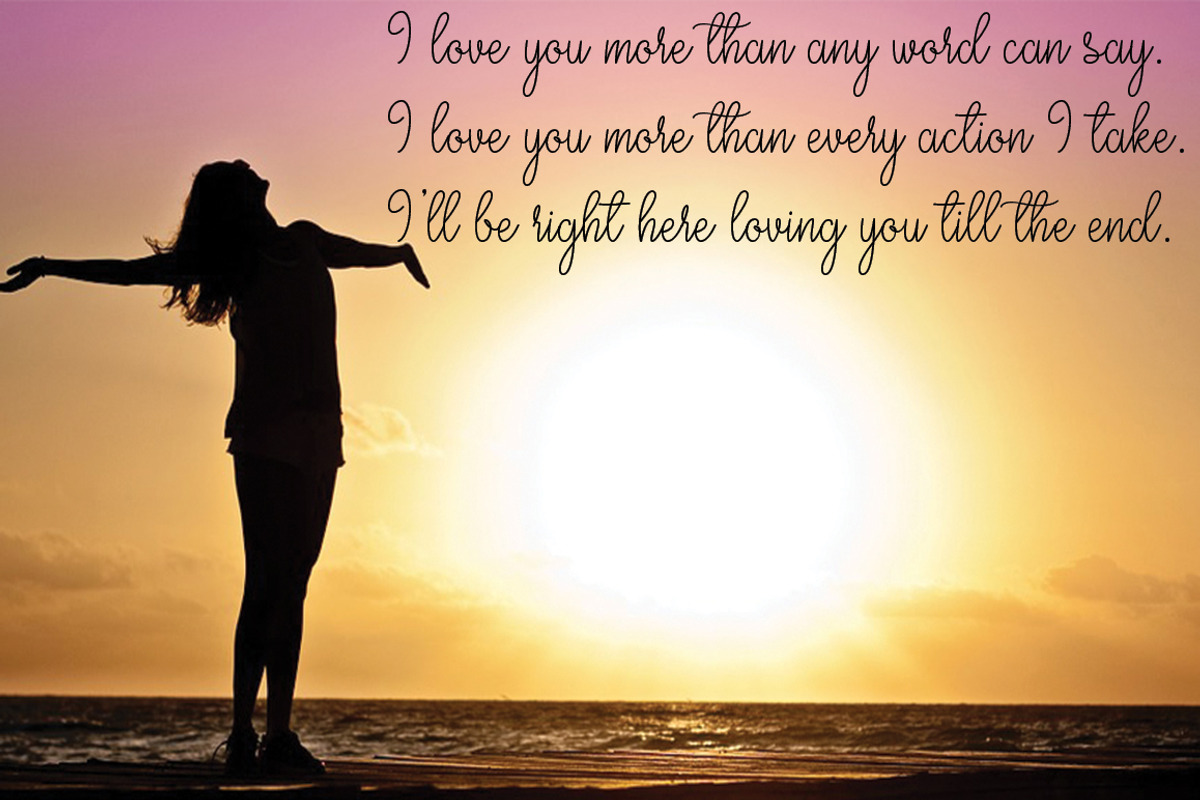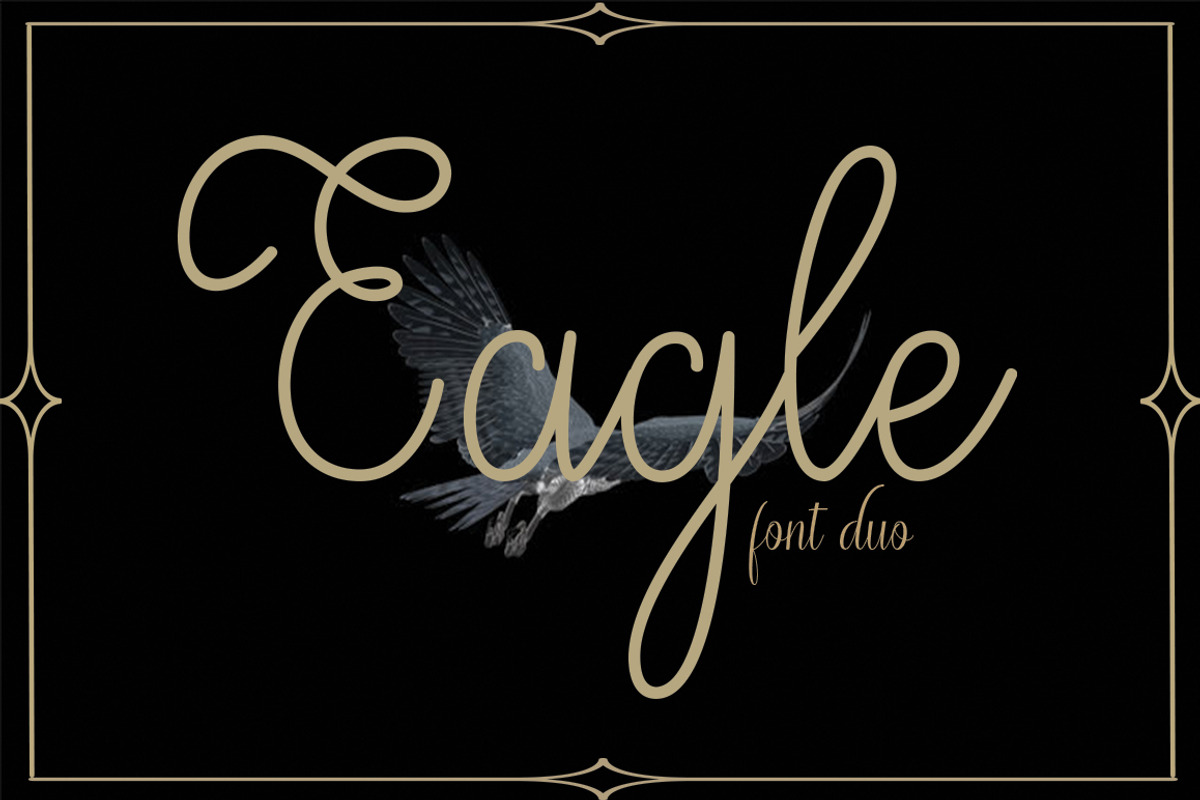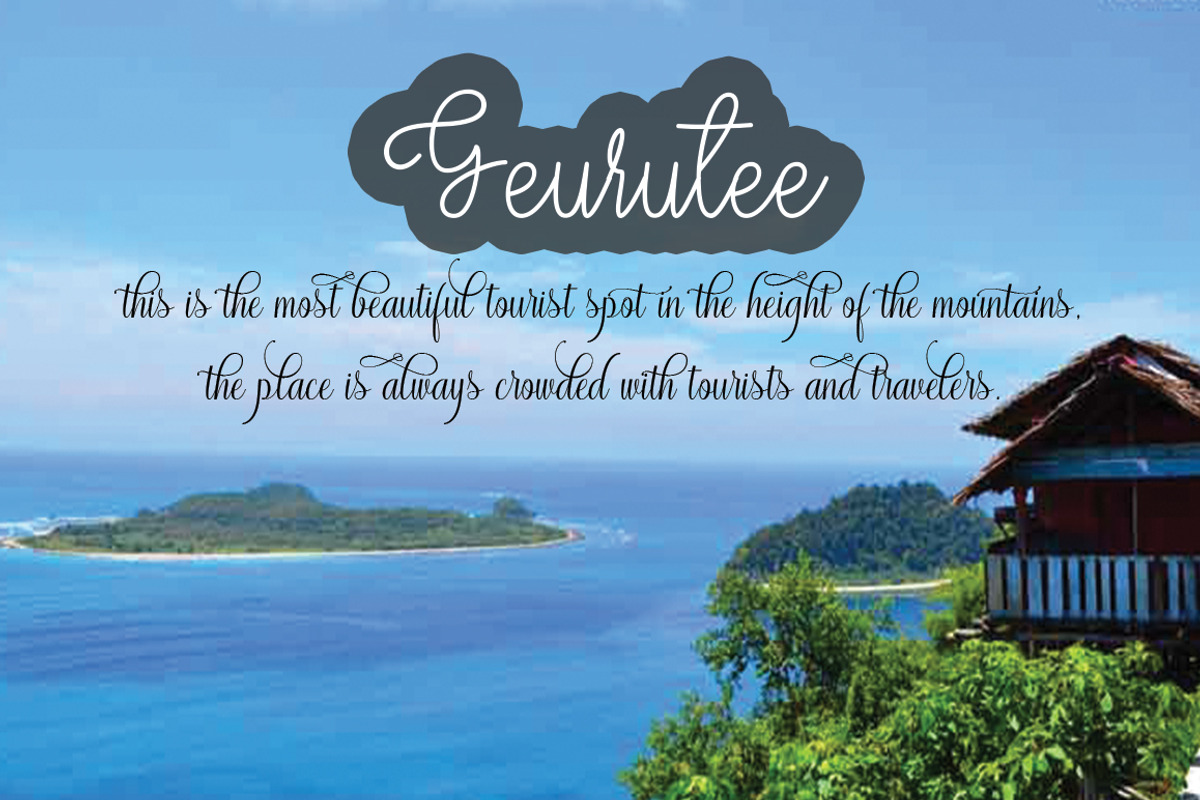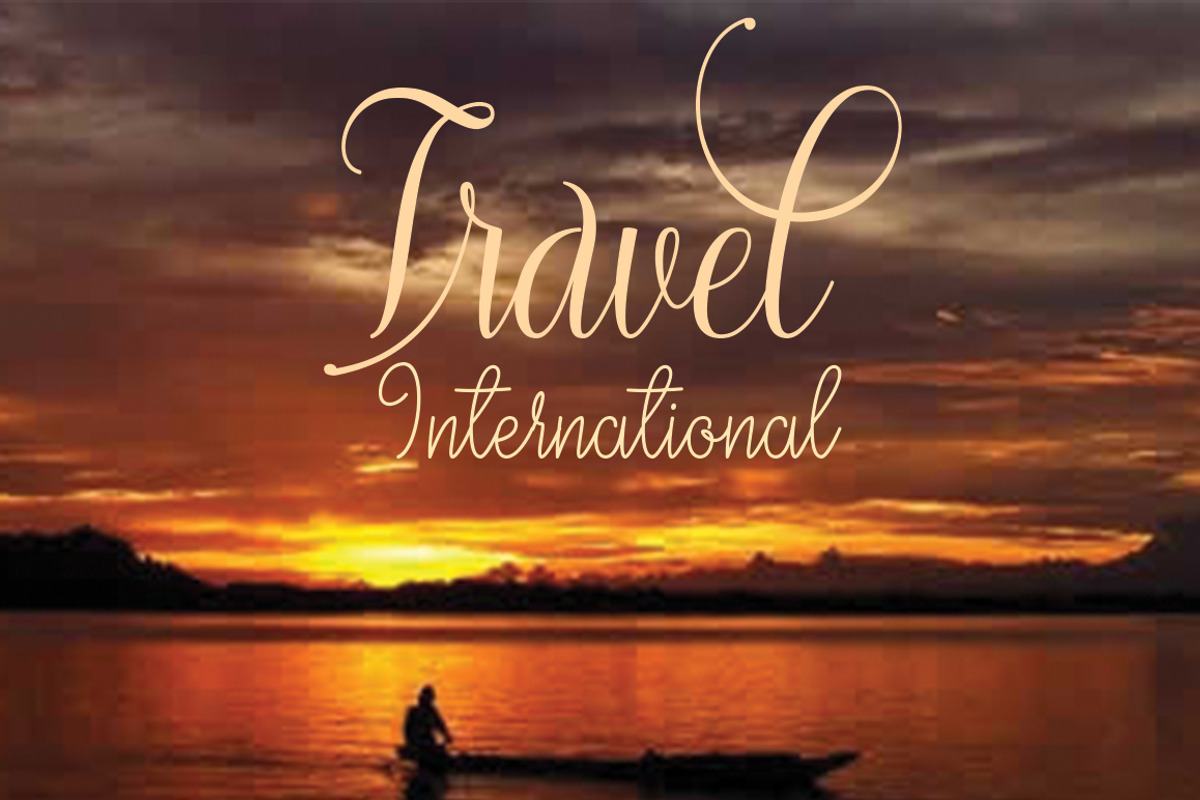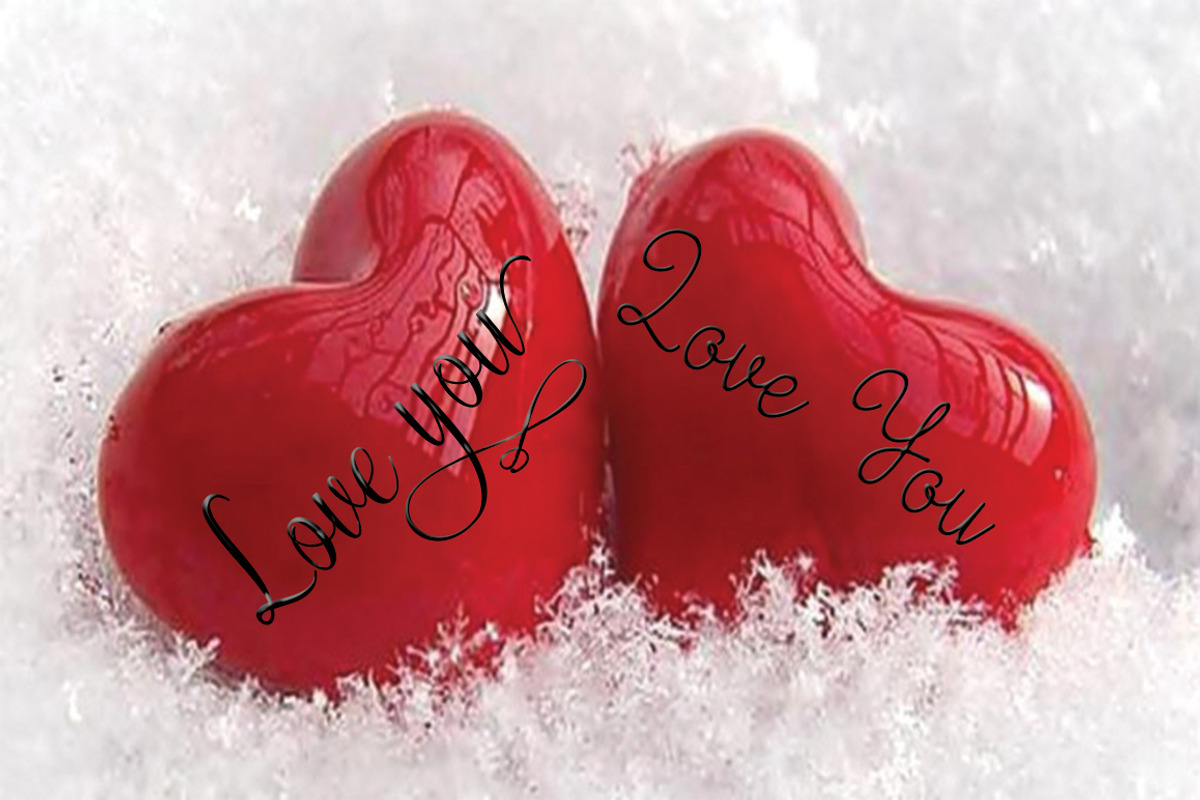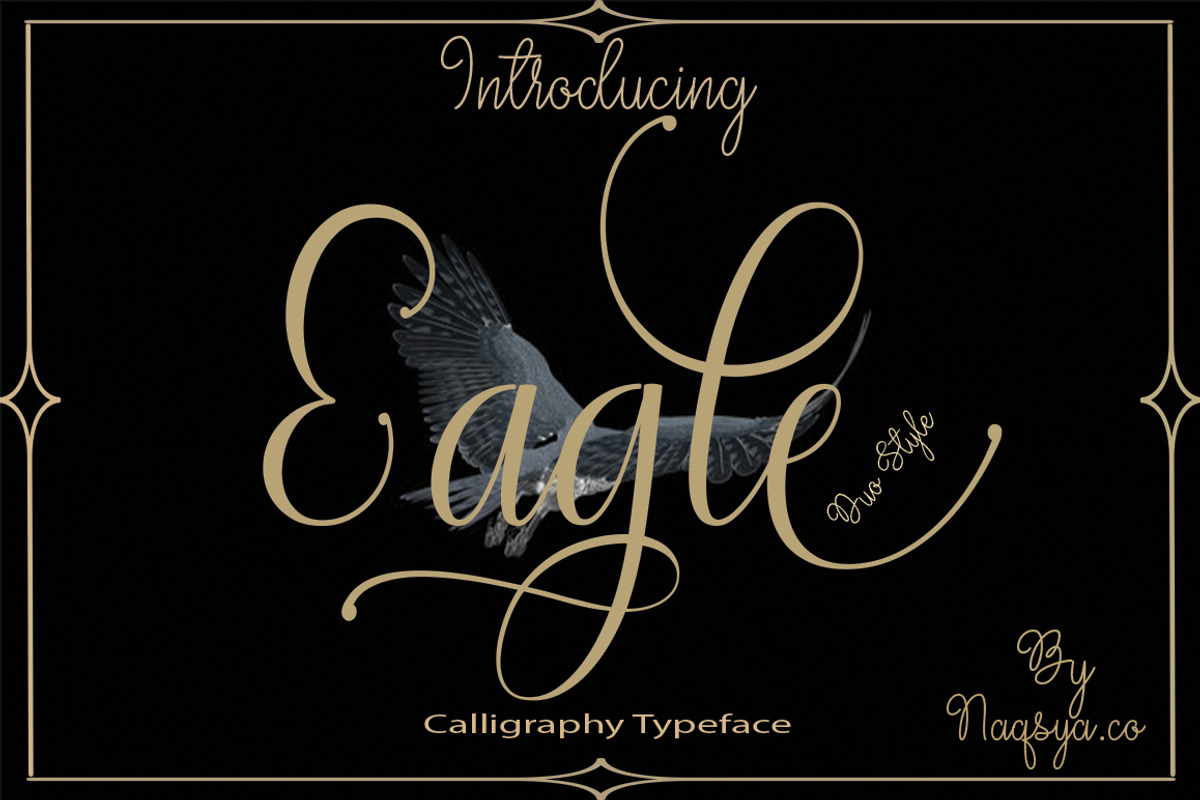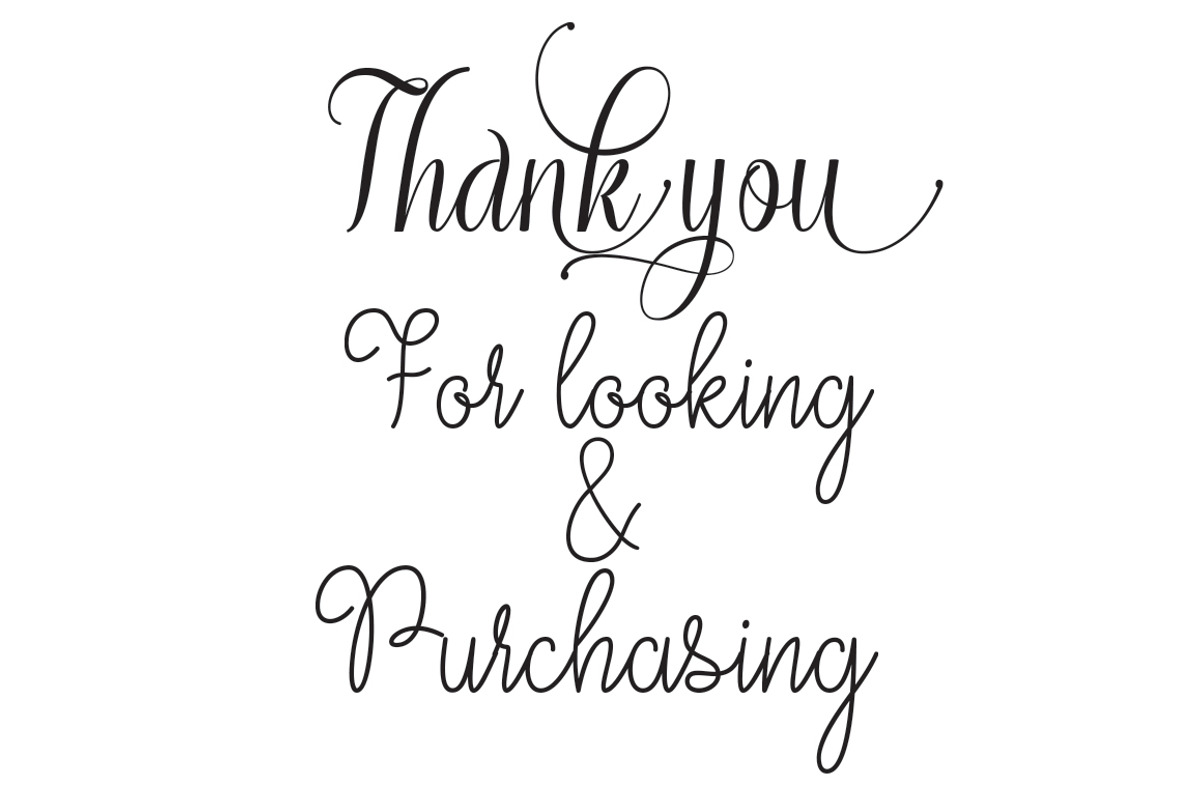
Eagle Font
Eagle Modern Calligraphy. This font was designed by handwriting, and it has a modern and unique forms of calligraphy, the writing style is very natural.The Features of this fonts is;
Standart ligatures Stylistic Alternates Contextual Alternates Stylistic sets